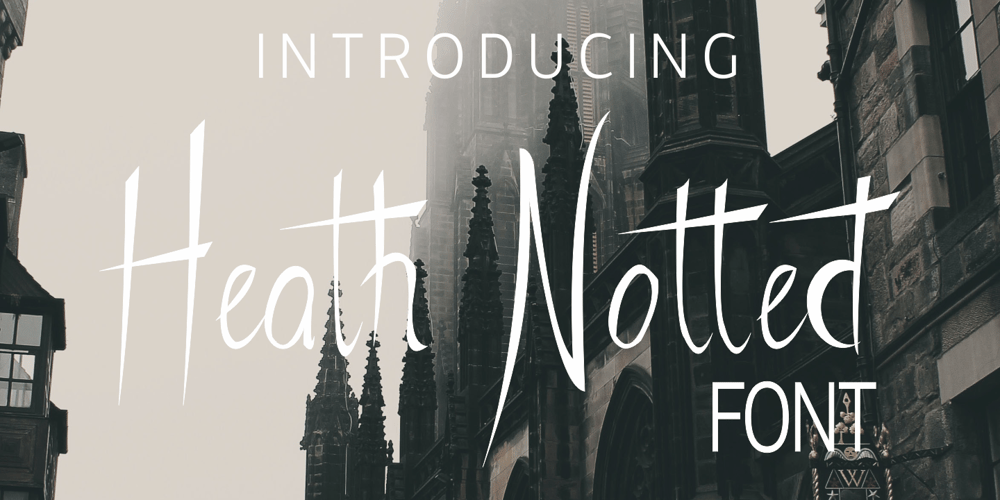
Heath Notted Font Family was designed by Yulius Paryadi and published by YuliusParyadi. Heath Notted contains 1 styles and family package options. Heath Notted is suitable for display like poster, halloween, witch theme. We created it inpired by the night, because some times night is not always just dark, but sometimes it’s beautiful. Heath Notted is includes:- full set uppercase and lowercase letter;- numerals;- large number of punctuations;- ligatures, and swash. Please add this font as your favorit, hit like button, or follow me. I’ll very happy for that and aprreciated it.Thank you!